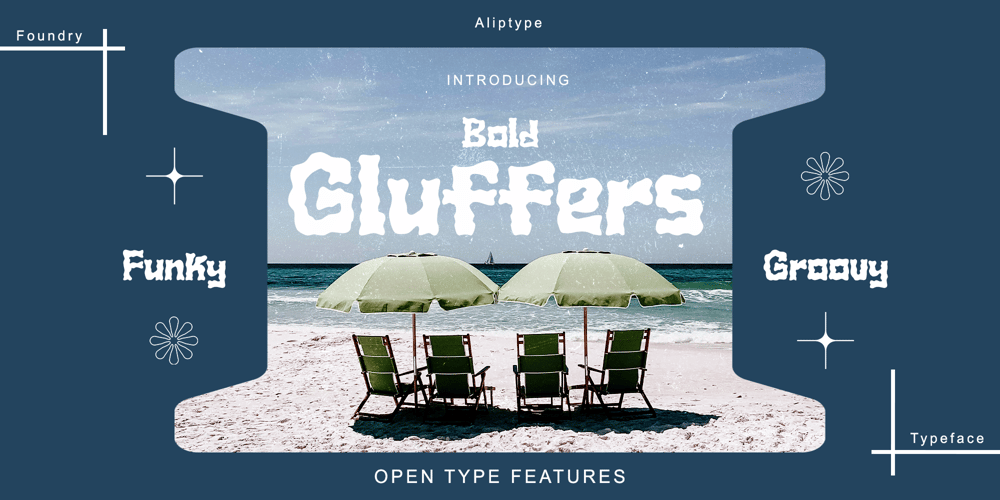
Gluffers
Gluffers font
Gluffers Font Family was designed by Muhamad Alip Fabio Mandaka and published by Aliptype. Gluffers contains 1 styles and family package options. Gluffers is bold with a retro and funky style display font. Mannualy design by handcrafted letterings, use this display font to add special result on your artwork. This font have a good potential to bring your artwork design to the next level ,also feeling the funky and groovy vibes touch.This font is very suitable for posters, pamflets, packaging, logo, quotes, advertisement, greeting cards, also many more can do and explore with this font for design work.